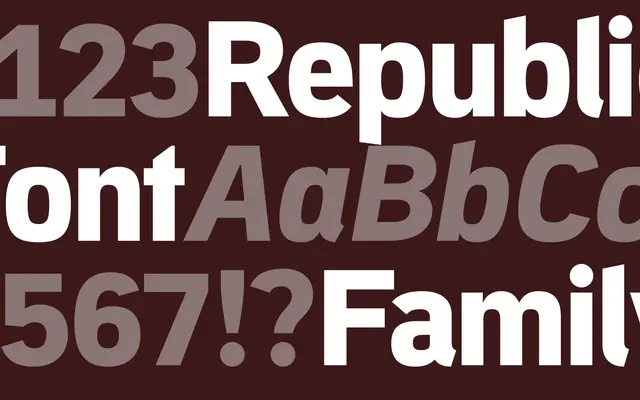
Republic
A serif typeface from Playtype with a classical disposition, suited to editorial and body text applications.
Republic sits within Playtype's range of considered text faces, carrying a formal character appropriate for longform editorial and publishing contexts. The page offers limited technical detail, but the tone and naming suggest a typeface built for sustained reading rather than display use. Weight and style variants are not confirmed from available copy.
The page copy is minimal, but Republic's name and Playtype's design sensibility suggest a structured, classical-leaning serif; classified as transitional based on the foundry's typical output and the typeface's positioning.